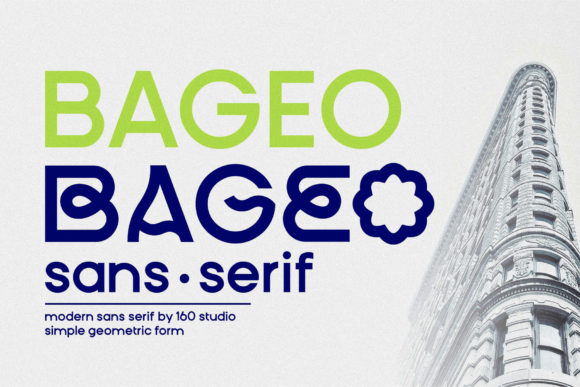
Introducing Bageo Font - A Masterpiece for Minimalist Ad Designs
In a world where visual impact reigns supreme, Bageo Font emerges as a beacon of clarity and elegance. Experience the transformative power of minimalism with this display font, meticulously crafted to elevate your advertising campaigns to new heights.
Bageo's clean lines and simple forms create a striking visual contrast that captures attention and leaves a lasting impression. Let your message shine through the clutter, unadorned and impactful, as Bageo amplifies its essence with understated grace.
Unleash Your Creative Vision
Bageo's versatility extends far beyond the realm of advertising. Its minimalist aesthetic seamlessly blends with a multitude of design styles, making it a perfect fit for branding, packaging, and social media. Whether you're crafting captivating logos, eye-catching brochures, or engaging social media posts, Bageo empowers you to express your unique creative vision with unwavering impact.
Maximize Impact, Minimize Effort
Experience the Bageo Difference
With Bageo at your fingertips, prepare to witness the remarkable transformation of your designs. Its minimalist charm captivates audiences, leaving an indelible mark on their minds. Join the growing legion of designers and marketers who have discovered the transformative power of Bageo Font.
Embrace the minimalist revolution and elevate your designs to new heights. Discover the Bageo difference today.